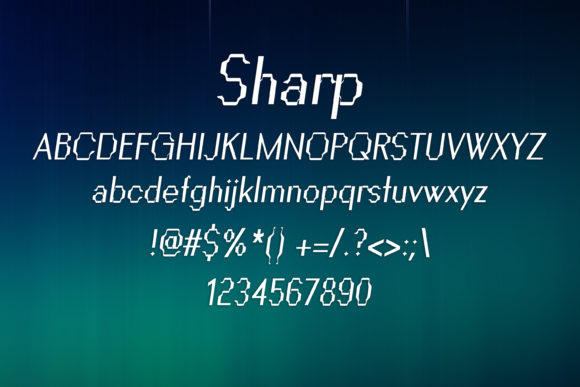
Introduction to Sharp Font
Have you ever found yourself stuck in a creative rut, staring at a blank page or screen, desperately searching for that one font that will bring your design project to life? You’re not alone. Many designers face this challenge, but it’s moments like these that can spark the most innovative ideas. For some, the solution lies in the unlikeliest of places – a quirky display font that defies the ordinary and transports you to another world.
Enter Sharp Font, a game-changing design resource that’s set to revolutionize your creative projects. With its unique blend of technical details and otherworldly charm, Sharp Font is the perfect addition to any high-quality design.
Whether you’re working on a free download or a paid project, Sharp Font’s versatility and style make it an invaluable asset for designers seeking to create truly eye-catching messages. And with its transparent background, the possibilities are endless – from social media graphics to posters, and everything in between.
Key Features of Sharp Font
- Designed with precision and attention to detail, resulting in a crisp, sharp appearance at any resolution.
- Perfect for use in logos, icons, and graphics, thanks to its clean, modern aesthetic and high-resolution capabilities.
Honest Review: Sharp Font
As a designer, I’m always on the lookout for high-quality design resources to enhance my creative projects. Sharp Font has caught my attention with its sleek and modern aesthetic.
- ✨ High-quality design: Sharp Font boasts crisp and clean typography that’s perfect for modern designs.
- ⚠️ Limited character set: Sharp Font’s character set is somewhat limited, which may not be suitable for extensive text-based projects.
- ⚠️ Not suitable for all designs: The font’s modern aesthetic may not be suitable for more traditional or vintage-inspired designs.
Overall, Sharp Font is a solid addition to any designer’s toolkit. While it may not be perfect for every project, its high-quality design and free download make it a great resource for modern and creative projects.
Sharp Font: Elevate Your Creative Projects
Sharp Font is ideal for:
Tips for Getting the Most Out of Sharp Font
Alternatives to Sharp Font
Open Sans is a popular, high-quality sans-serif font that is ideal for creative projects requiring a clean and modern design. It is available for free download and is often used in digital design due to its versatility.
When to use: Open Sans is suitable for websites, mobile apps, and other digital design projects where a clear and readable font is necessary. It is a good alternative to Sharp Font for projects requiring a more modern and minimalist aesthetic.
Comparison: Open Sans is more versatile and widely used than Sharp Font, but it may not have the same level of sharpness and edge as Sharp Font.
Montserrat is a geometric sans-serif font that is perfect for creative projects requiring a strong and modern design. It features a high-quality design and is available for free download, making it an excellent design resource.
When to use: Montserrat is suitable for projects that require a bold and modern aesthetic, such as fashion, technology, and urban design. It is a good alternative to Sharp Font for projects that need a more aggressive and edgy feel.
Q: Is Sharp Font suitable for high-resolution printing?
Yes, Sharp Font is designed to be high-resolution and suitable for printing at various scales. The font’s high-quality design ensures that it will look crisp and clear even at larger sizes, making it an excellent choice for creative projects that require a high level of detail and precision.